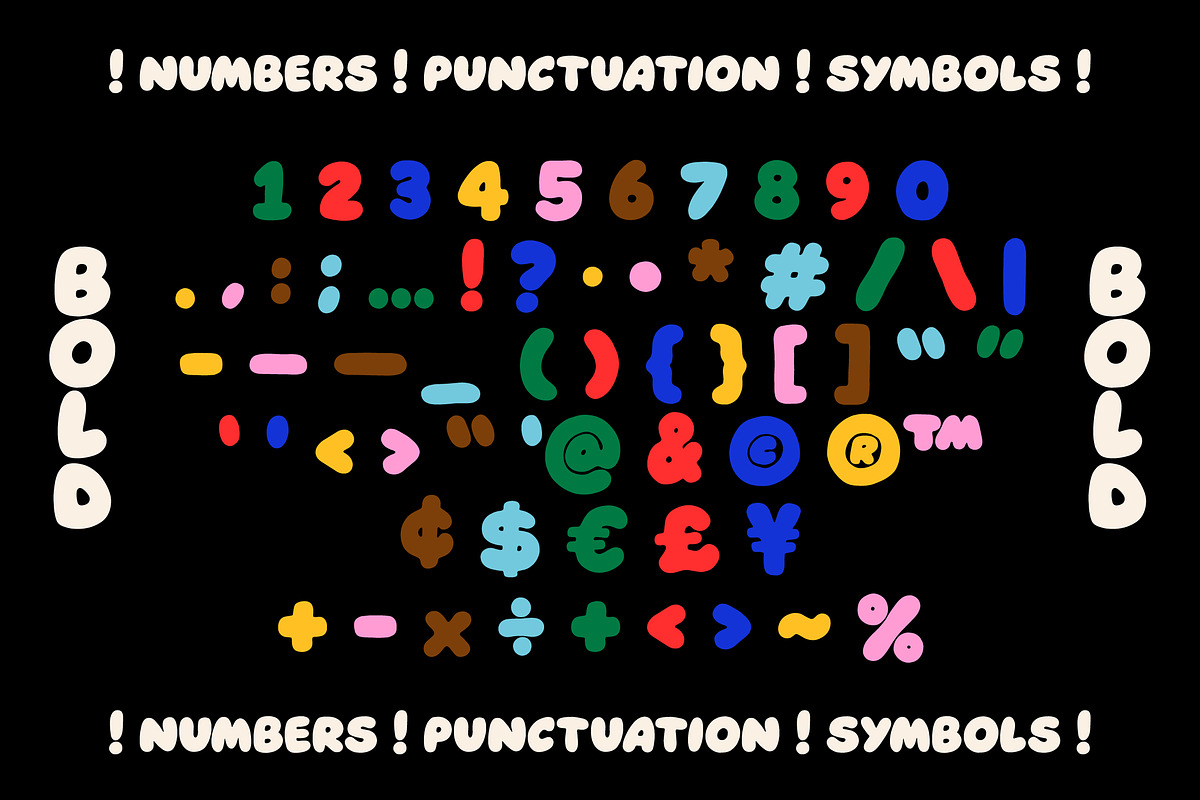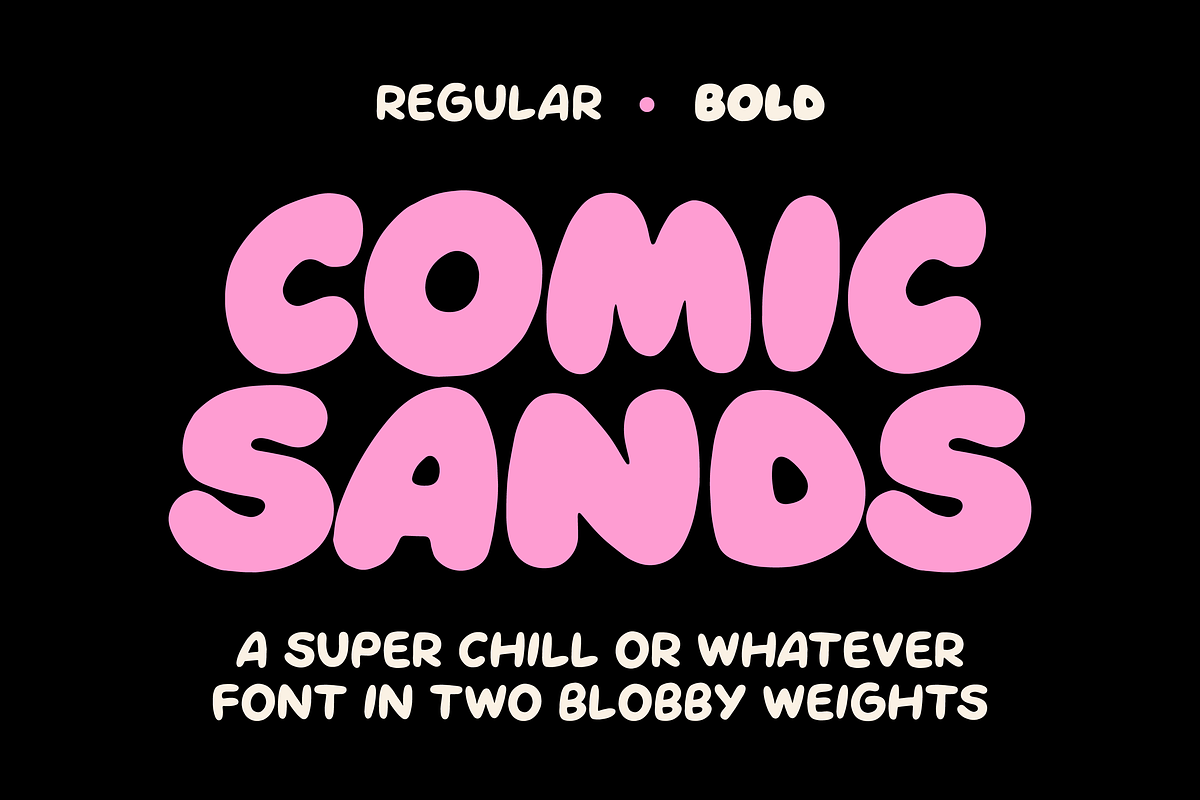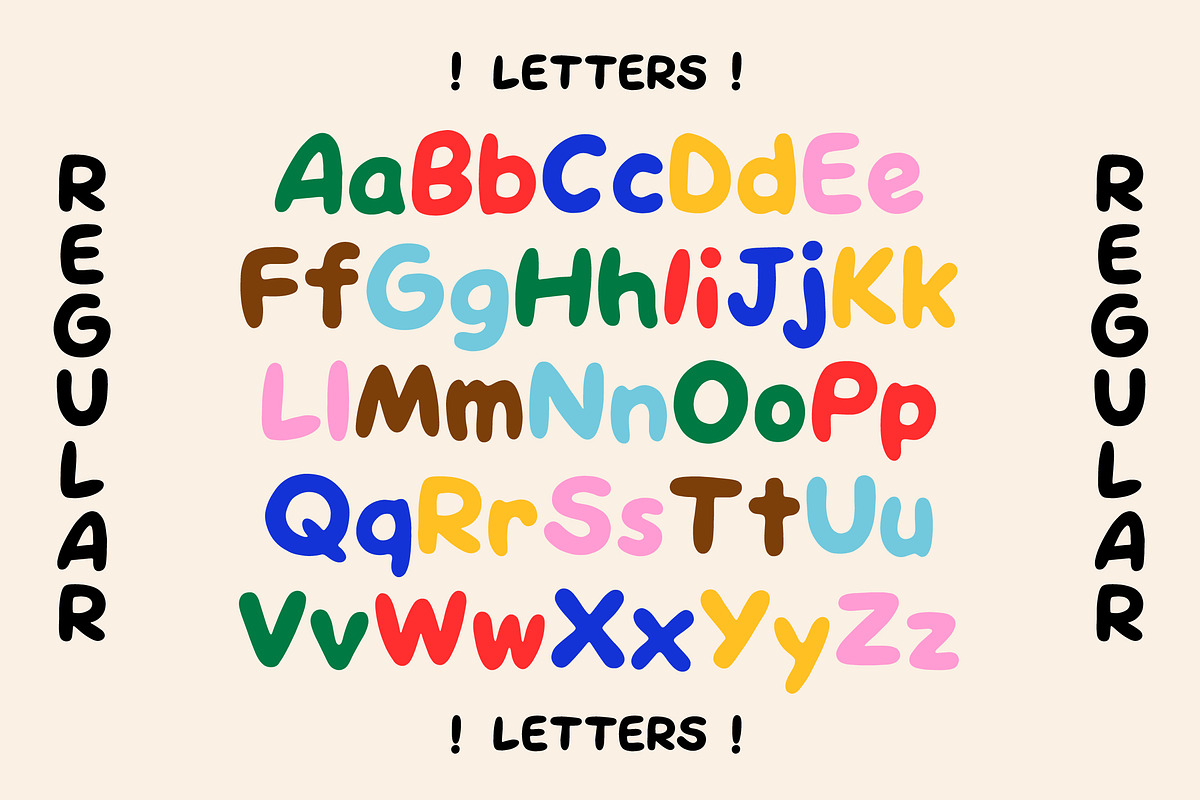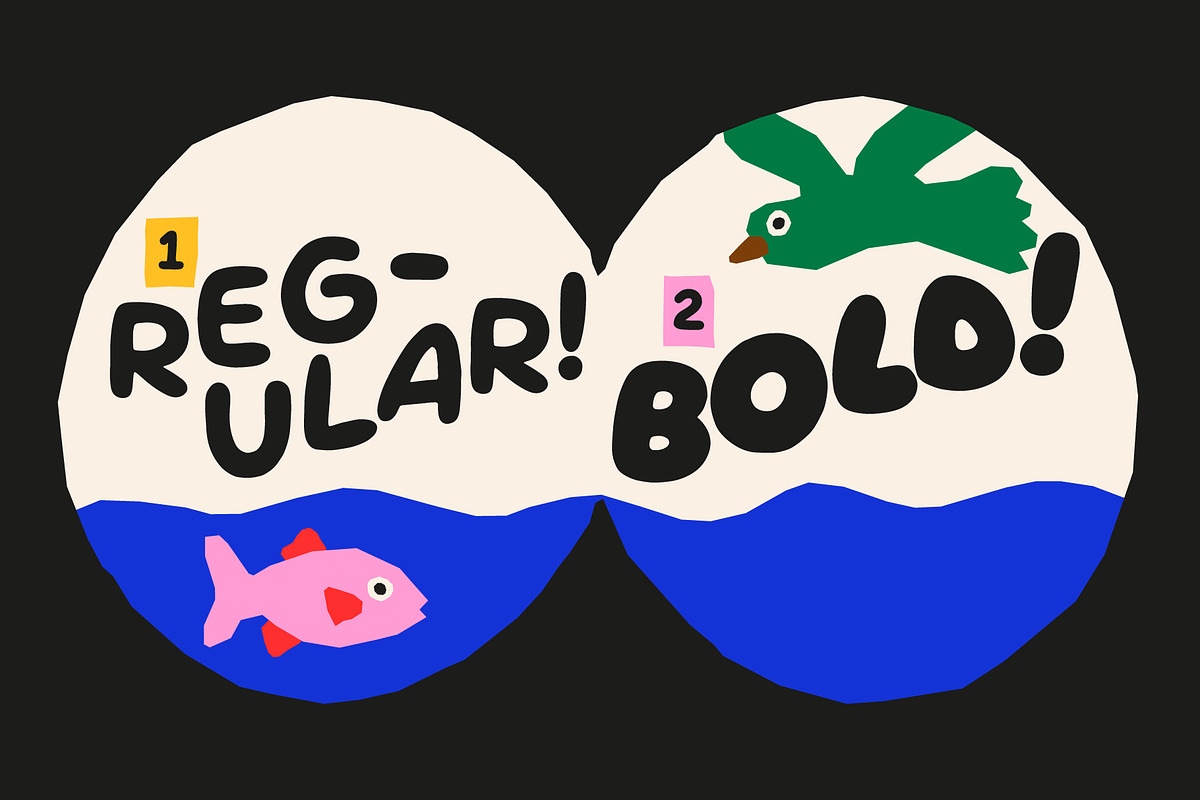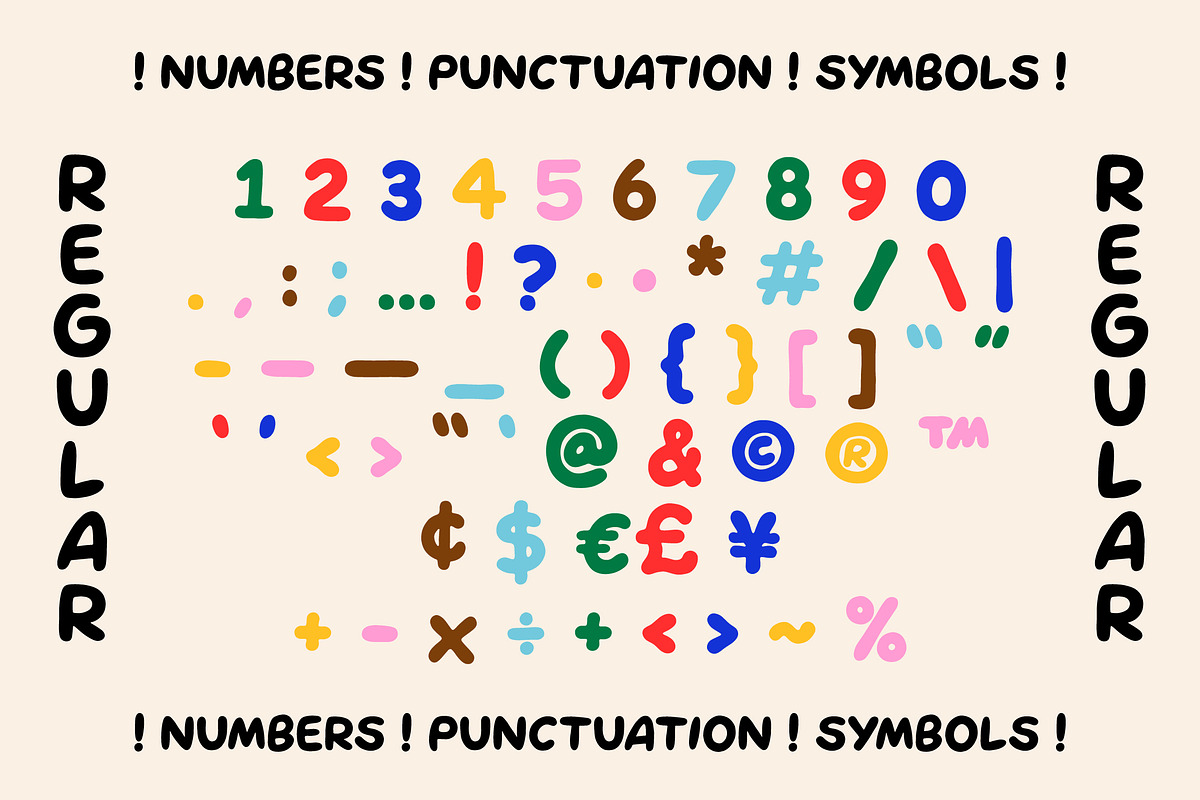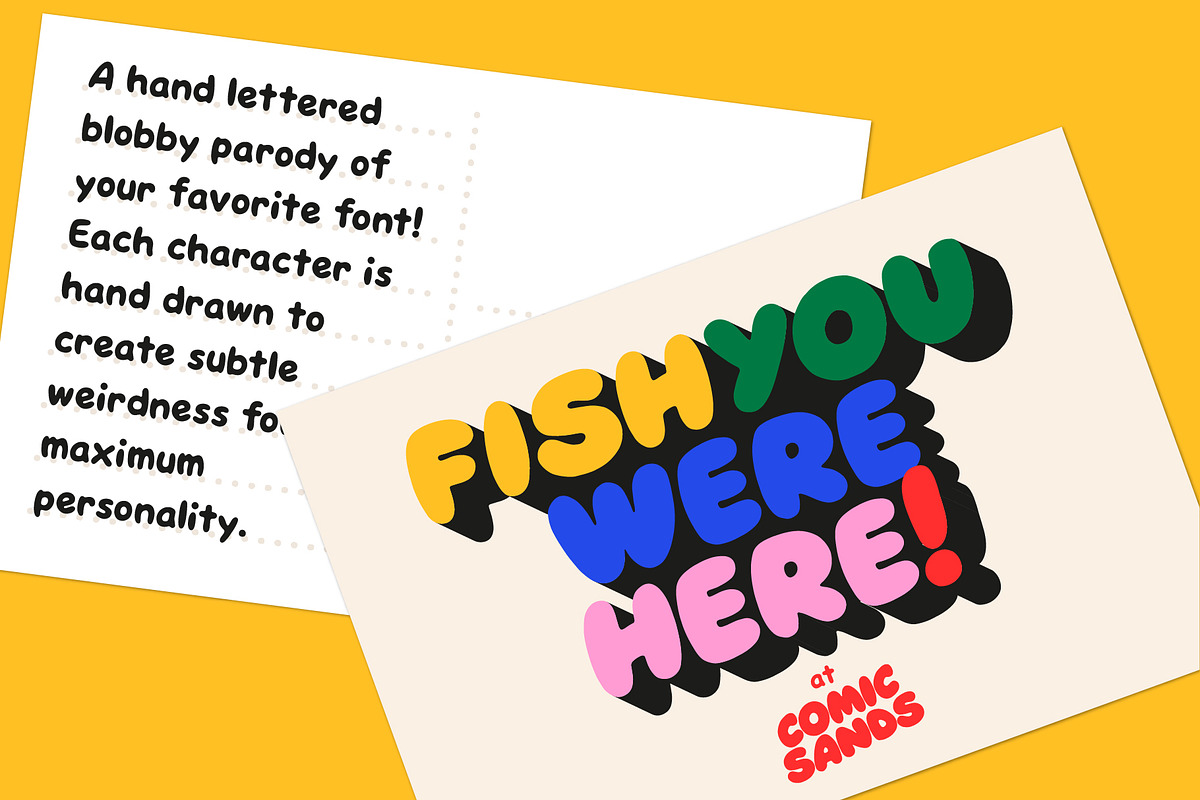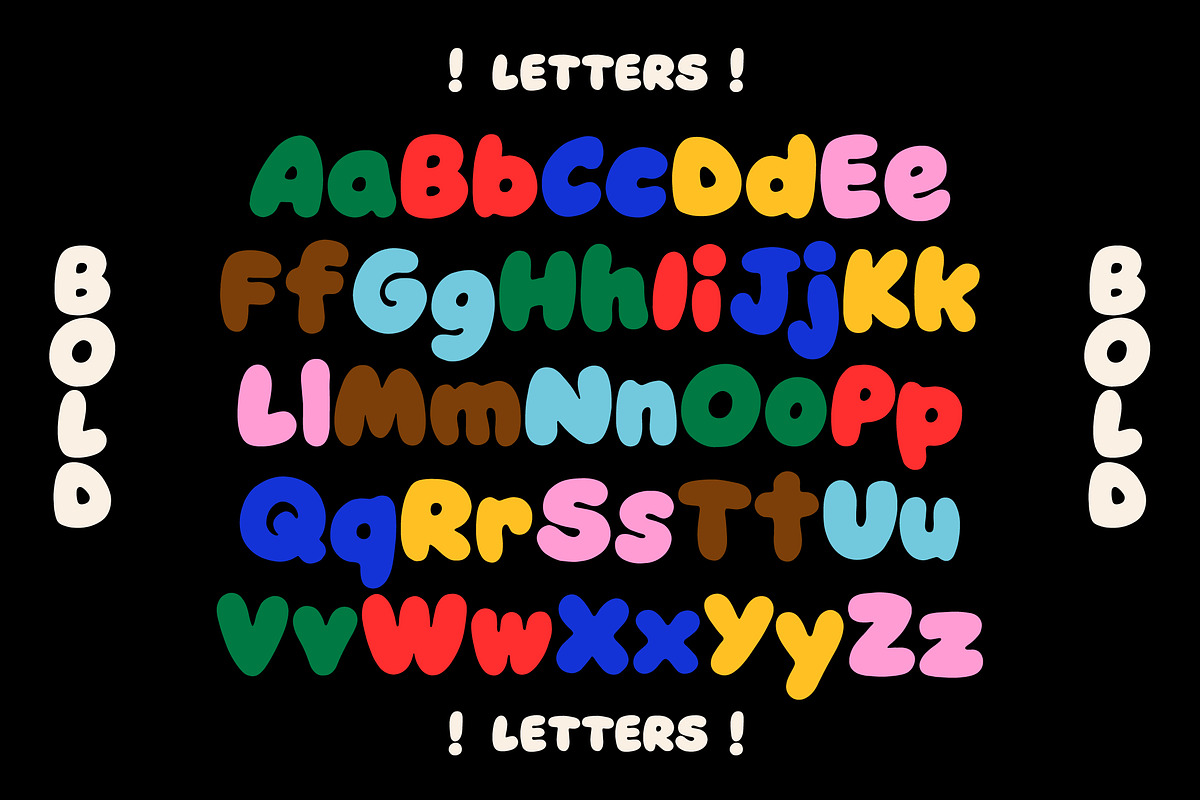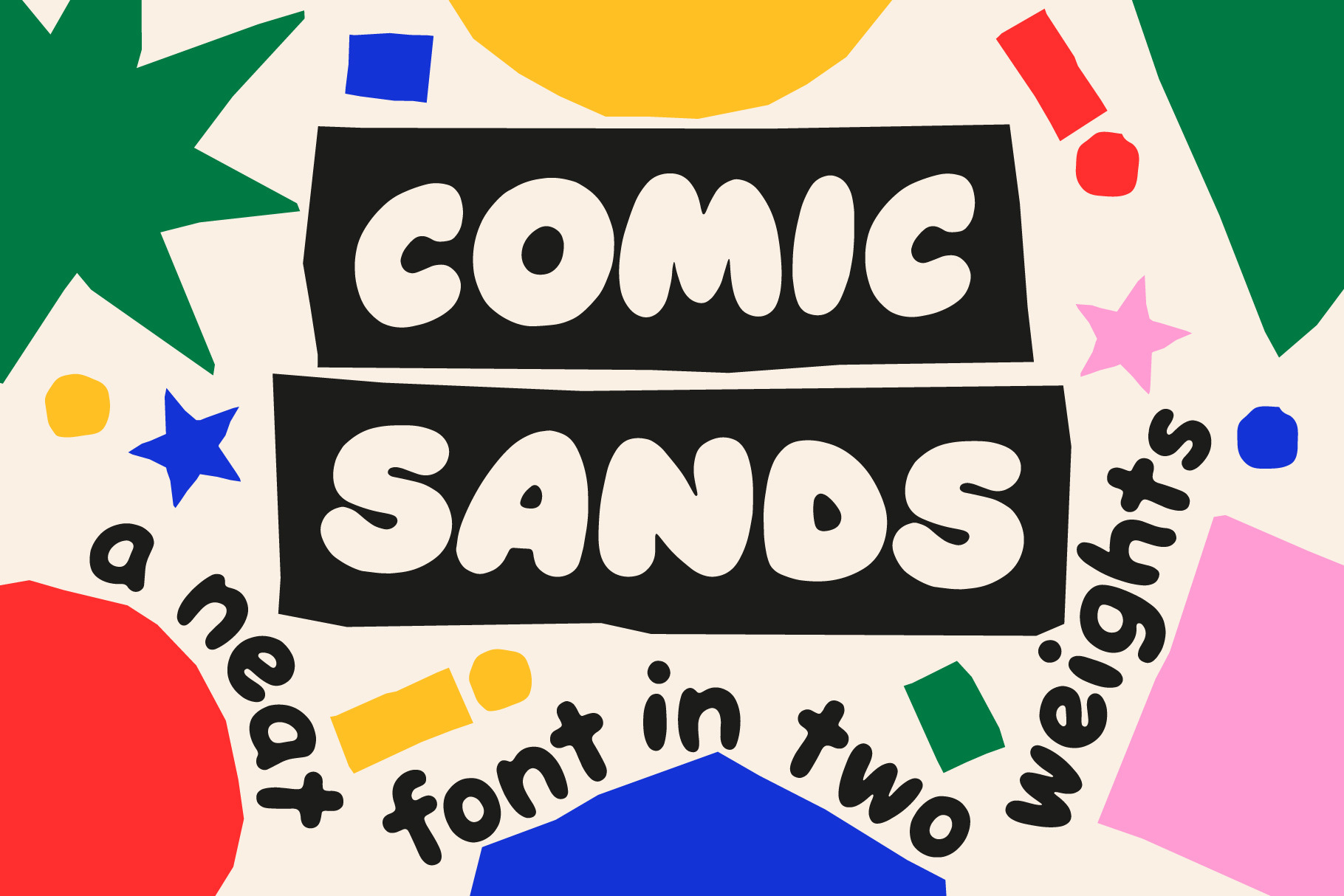
Comic Sands! A Font For Good Times
Comic Sands is a blobby parody of my favorite font! It's designed to look like you just drew these letters perfectly. Each character is hand drawn to create subtle variations in cap height, ascender height, x-height, baseline, spacing, weight, and contour line quality! The result is a regular and bold weight that feel like cousins, not twins. They pair well together and look great on comics, brand design, menus, and websites!
- Letters!
- Numbers!
- Symbols!
- Punctuation!